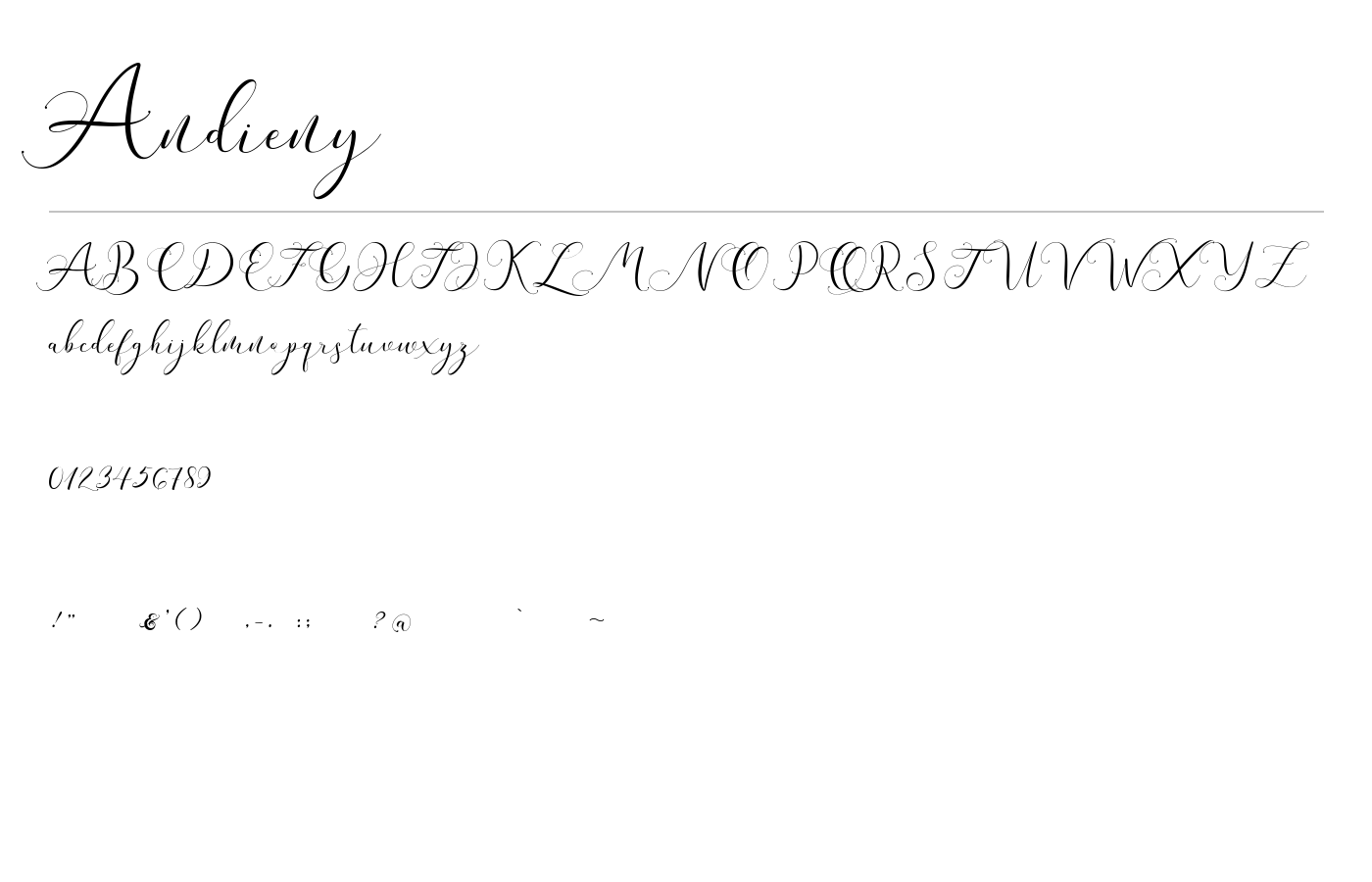
Andieny is an elegant, delicate script font characterized by its fine, flowing strokes and graceful swashes, giving it a refined and airy feel. Ideal for sophisticated branding, wedding invitations, and luxury packaging, this font conveys a sense of romance and timeless beauty through its gentle curves and artistic flourishes. Its light weight and intricate details make it perfect for decorative and upscale designs that seek a personal, handcrafted touch.
Andieny Font
About Andieny Font